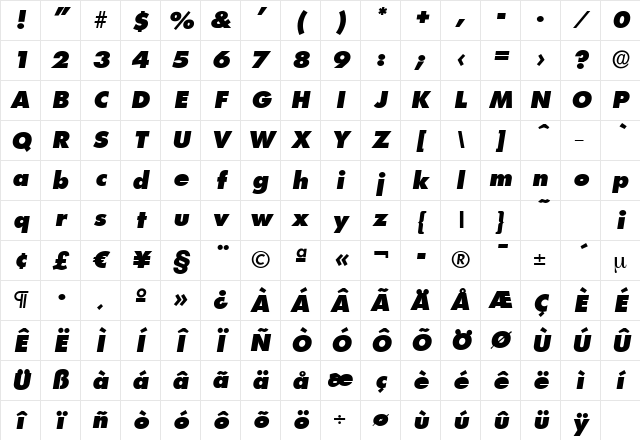
PeterBecker-Heavy Italic
Design Context for PeterBecker-Heavy
PeterBecker-Heavy is a composed and adaptable typeface that performs quietly and consistently across a wide range of design contexts. The slanted form adds forward momentum and visual energy.
Pro Tip: Use PeterBecker-Heavy for emphasis, pull quotes, and subheadings where its slanted energy can add rhythm to the layout.